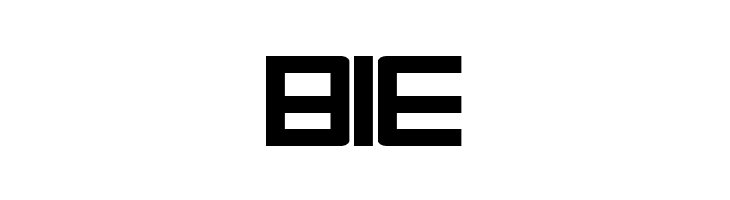
A bold, geometric font with an industrial, cable-like design.
A futuristic, digital-inspired font with bold, geometric shapes and rounded corners.
A sleek, modern font with geometric influences and rounded edges.
A bold, geometric font with a futuristic and modern aesthetic.
A modern, geometric font with rounded edges and a bold, cohesive appearance.
A bold, decorative font with thorn-like embellishments and a gothic style.
A bold, geometric font with a futuristic and blocky design.
A pixelated, digital-style font with a geometric, grid-like structure.
A pixelated, monospaced font with a retro digital aesthetic.